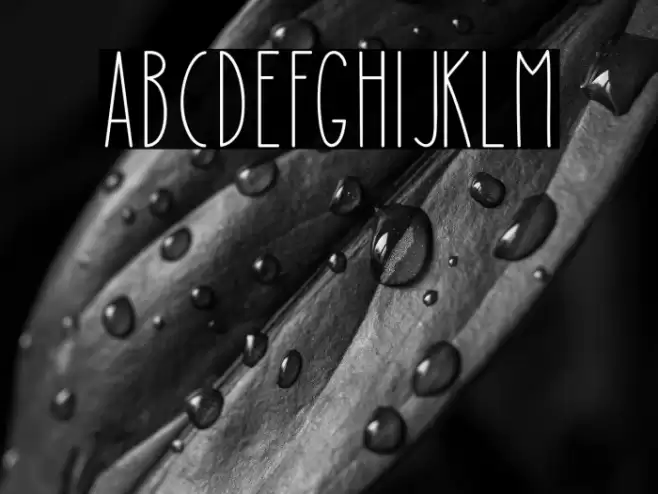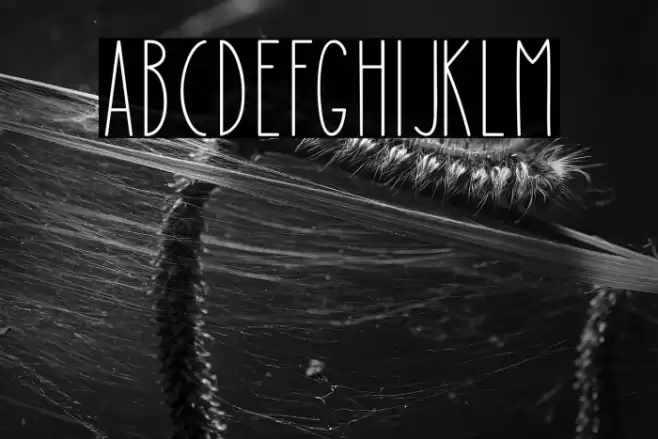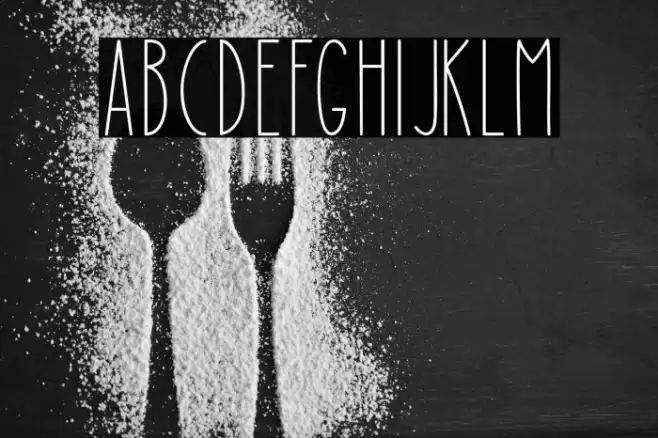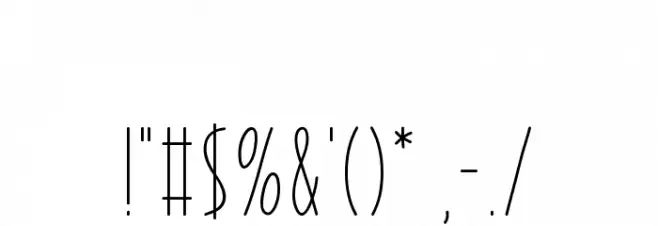
Mushy Loversy Font
Mushy Loversy Description
This font features a tall, slender design with a playful and whimsical touch. The characters are elongated and slightly curved, giving them a unique and artistic appearance. The strokes are consistent in width, providing a clean and modern look. The font maintains a sense of elegance and simplicity, making it versatile for various design projects. Its distinctive style is both eye-catching and easy to read, suitable for creative and contemporary applications.
A tall, slender, and playful font with a modern and artistic style from Uncategorized fonts.
- Font: Mushy Loversy
- Proposed Projects: Ideal for greeting cards, invitations, posters, and branding materials that require a touch of whimsy and elegance.